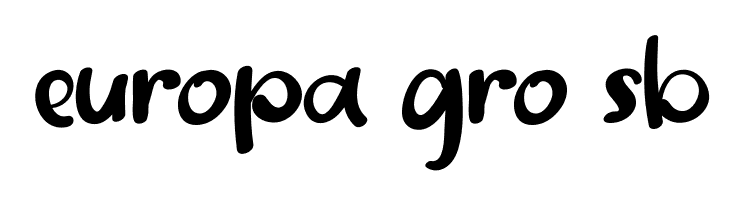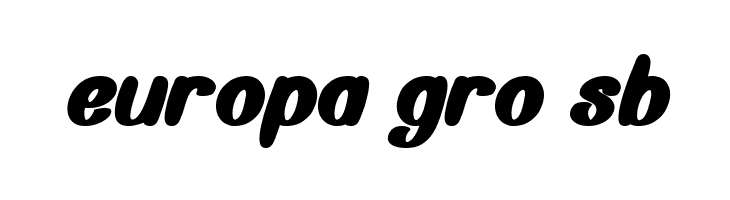
( Fonts by www.blambot.com ) A playful, handwritten-style font with bold, rounded letterforms. Download 1068 Downloads@WebFont
( Fonts by www.blambot.com ) A bold, italicized font with a dynamic and energetic style. Download 1271 Downloads@WebFont
( Fonts by www.blambot.com ) A dynamic, playful handwritten font with smooth, slanted letterforms. Download 327 Downloads@WebFont
( imagex - www.imagex-fonts.com ) A bold, three-dimensional font with a strong, shadowed outline and geometric style. Download 123 Downloads@WebFont
( www.imagex-fonts.com ) A bold, expressive brush-style font with dynamic, hand-painted strokes. Download 177 Downloads@WebFont
( Fonts by Jacob Fisher - www.pizzadude.dk ) A pixelated, blocky font with a retro 1980s digital style. Download 636 Downloads@WebFont
( Fonts by Situjuh Nazara - 7ntypes.com - Personal-use only. For commercial use please contact owner. ) A geometric, maze-like font with bold, intersecting lines and a modern, architectural style. Download 50 Downloads@WebFont
( Fonts by Situjuh Nazara - 7ntypes.com - Personal-use only. For commercial use please contact owner. ) A bold, italicized font with a modern, futuristic design. Download 50 Downloads@WebFont
( Misti's Fonts - mistifonts.com/ ) A bold, cursive font with elegant curves and expressive flourishes. Download 3845 Downloads@WebFont
( Fonts by Misti's Fonts - Personal-use only. For commercial use please contact owner. ) A bold, elegant script font with flowing curves and high contrast. Download 171 Downloads@WebFont
( Fonts by Misti`s Fonts - mistifonts.com - Personal-use only. For commercial use please contact owner. ) A bold, expressive script font with elegant curves and fluid connections. Download 9593 Downloads@WebFont
( Fonts by Subectype & Orenari - Rangga Subekti & Ari - Personal-use only. For commercial use please contact owner. ) A lively handwritten font with fluid strokes and a casual style. Download 25 Downloads@WebFont
( Fonts by Scratchones ) Casual handwritten font with playful style. Download 250 Downloads@WebFont
( Fonts by Eddy Goodboy ) A playful, bold handwritten font with a casual and friendly style. Download 493 Downloads@WebFont
( Fonts by Manuel Viergutz - Typo Graphic Design - www.typographicdesign.de ) A bold, geometric font with strong square shapes and uniform borders. Download 206 Downloads@WebFont
( Fonts by Manuel Viergutz - Typo Graphic Design - www.typographicdesign.de ) A pixelated, grid-based font with a modern, digital aesthetic. Download 133 Downloads@WebFont
( Fonts by Manuel Viergutz - Typo Graphic Design - www.typographicdesign.de ) A grid-patterned, geometric font with a modern, digital aesthetic. Download 134 Downloads@WebFont
( Fonts by Manuel Viergutz - Typo Graphic Design - www.typographicdesign.de ) A modern, linear font with characters made of horizontal stripes. Download 184 Downloads@WebFont
( Fonts by Manuel Viergutz - Typo Graphic Design - www.typographicdesign.de ) A monospaced font with a barcode-like design, featuring characters made of vertical lines. Download 129 Downloads@WebFont
( Fonts by Manuel Viergutz - Typo Graphic Design - www.typographicdesign.de ) A modern, barcode-inspired font with vertical line patterns. Download 166 Downloads@WebFont
( Fonts by Manuel Viergutz - Typo Graphic Design - www.typographicdesign.de ) A modern, dotted font with a digital, pixelated style. Download 152 Downloads@WebFont
( Fonts by Manuel Viergutz - Typo Graphic Design - www.typographicdesign.de ) A dot matrix font with a digital, tech-inspired aesthetic. Download 163 Downloads@WebFont
( Fonts by Manuel Viergutz - Typo Graphic Design - www.typographicdesign.de ) A bold, geometric font with a futuristic, digital aesthetic. Download 153 Downloads@WebFont
( Fonts by Wino S Kadir - weknow - www.revolge.com/shop/weknow/ - Personal-use only. For commercial use please contact owner. ) A bold, playful script font with a handwritten feel. Download 119 Downloads@WebFont
( Fonts by weknow - Wino S Kadir - Personal-use only. For commercial use please contact owner. ) A bold, playful font with a hand-drawn, rounded style. Download 56 Downloads@WebFont
( Fonts by weknow - Wino S Kadir - Personal-use only. For commercial use please contact owner. ) A bold, italic, and playful font with a handwritten feel. Download 61 Downloads@WebFont
( Fonts by weknow - Wino S Kadir - Personal-use only. For commercial use please contact owner. ) A bold, italicized script font with smooth, rounded characters. Download 62 Downloads@WebFont
( Fonts by weknow - Wino S Kadir - Personal-use only. For commercial use please contact owner. ) A playful, hollow, hand-drawn font with rounded, consistent characters. Download 33 Downloads@WebFont
( Fonts by weknow - Wino S Kadir - Personal-use only. For commercial use please contact owner. ) A playful, hollow, and rounded font with a whimsical style. Download 28 Downloads@WebFont
( Fonts by weknow - Wino S Kadir - Personal-use only. For commercial use please contact owner. ) A bold, playful handwritten font with rounded, irregular characters. Download 44 Downloads@WebFont
( Fonts by weknow - Wino S Kadir - Personal-use only. For commercial use please contact owner. ) A playful, bold font with rounded, thick strokes and a friendly appearance. Download 82 Downloads@WebFont
( Font by Jonathan Harris - www.tattoowoo.com ) A playful, handwritten script font with a lively and dynamic style. Download 1008 Downloads@WebFont